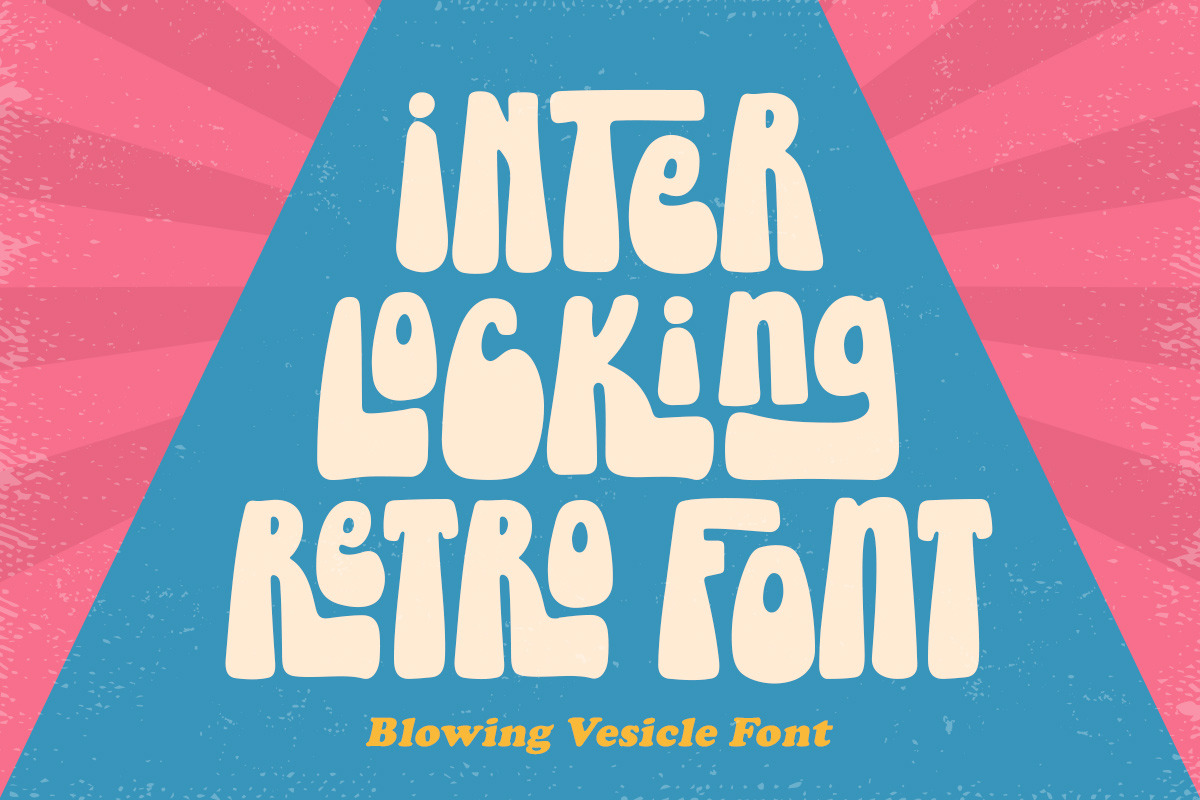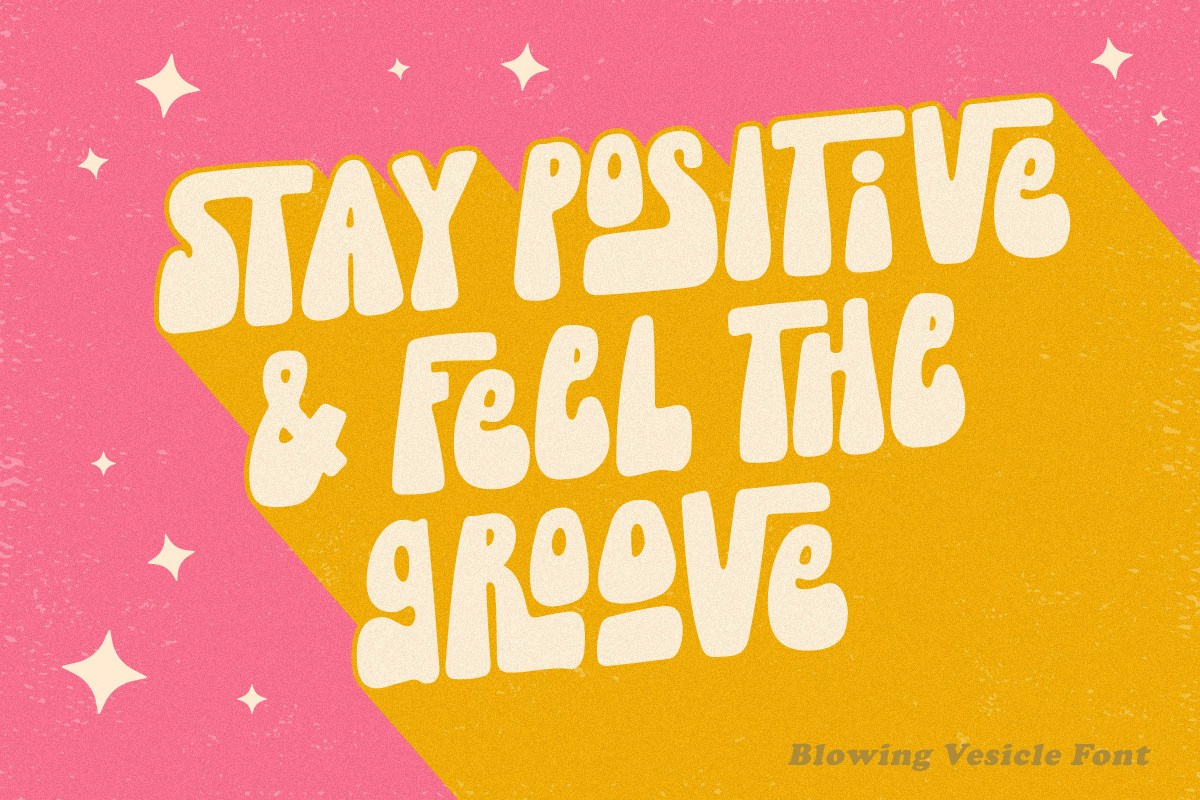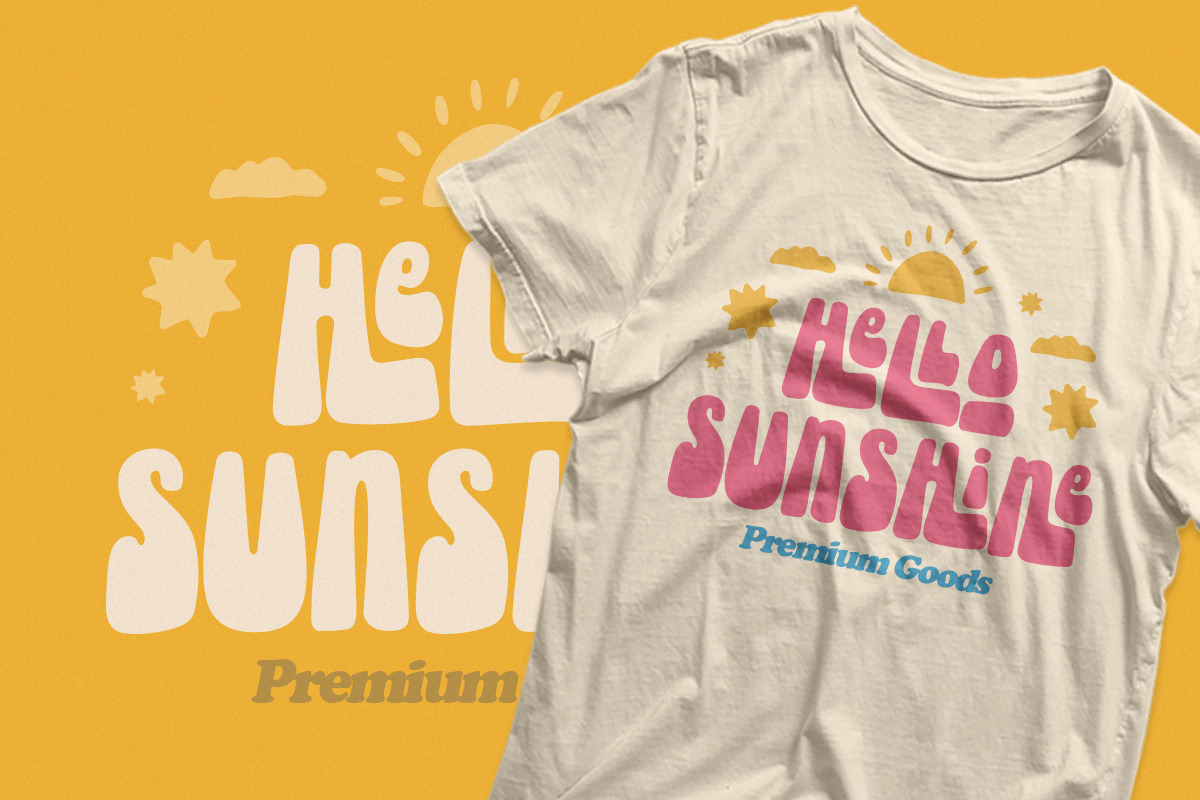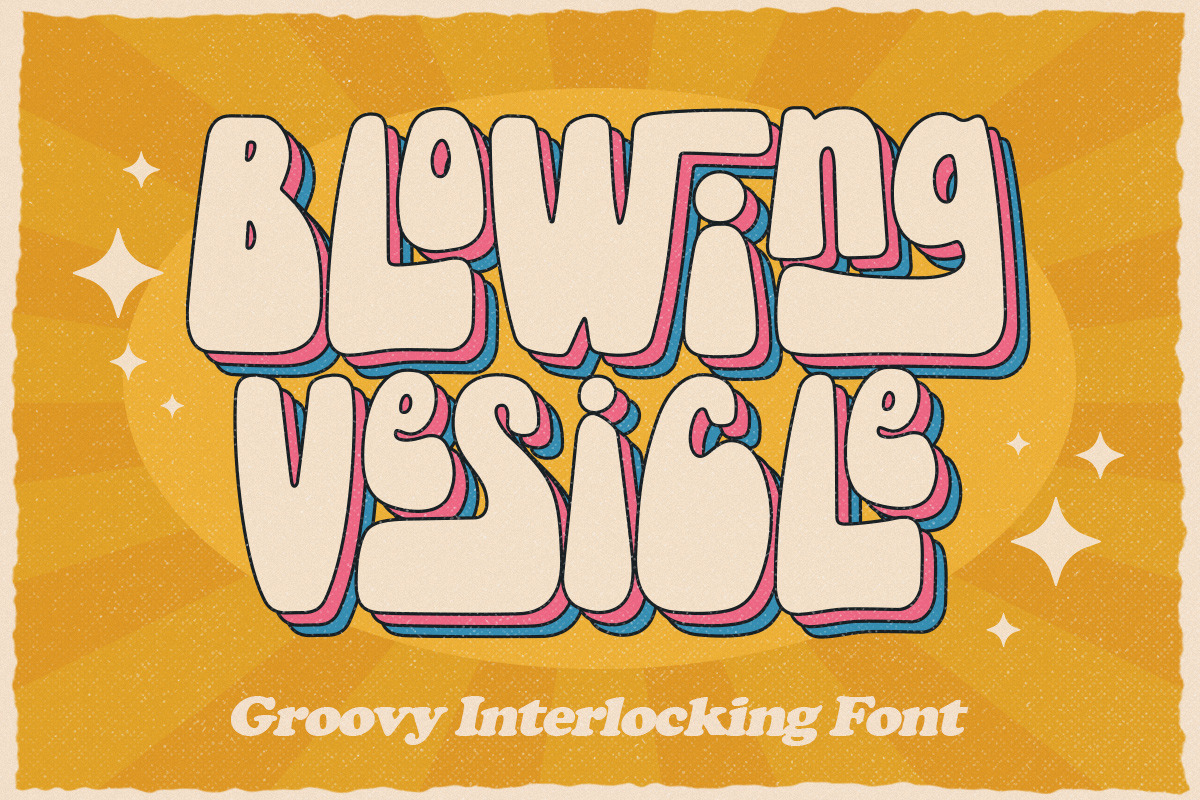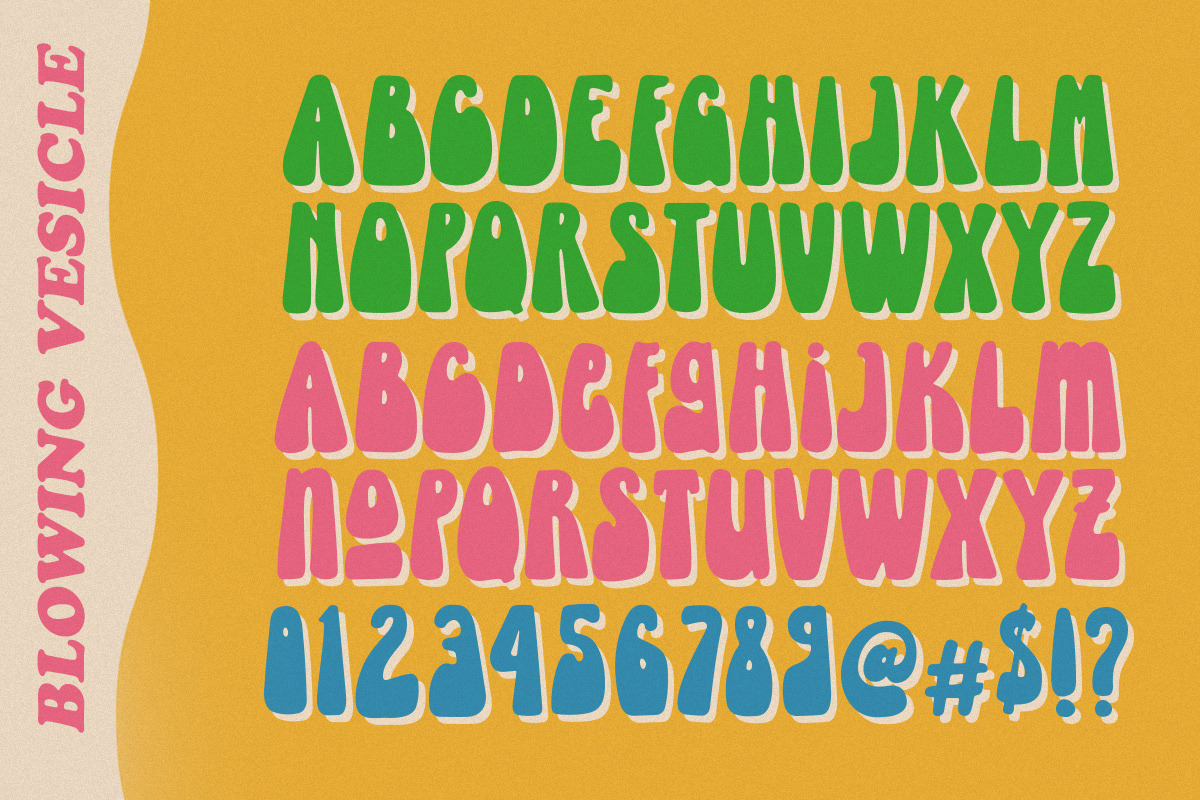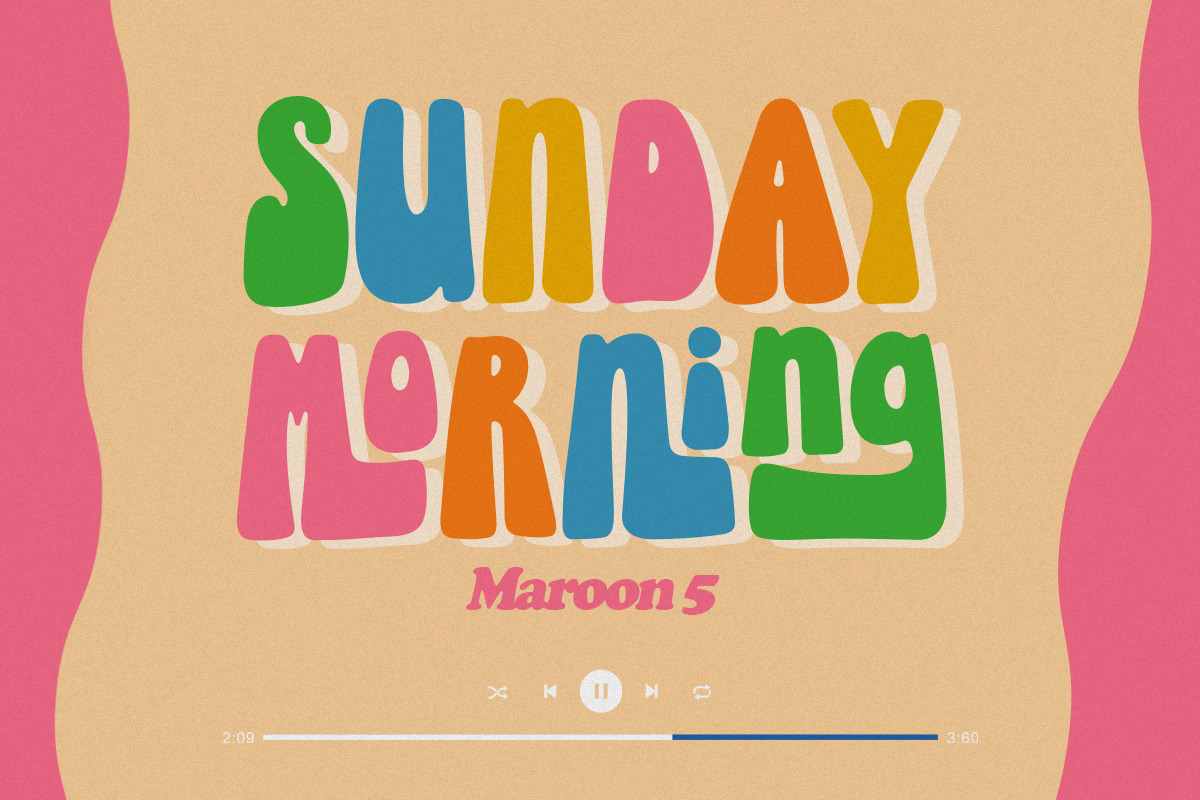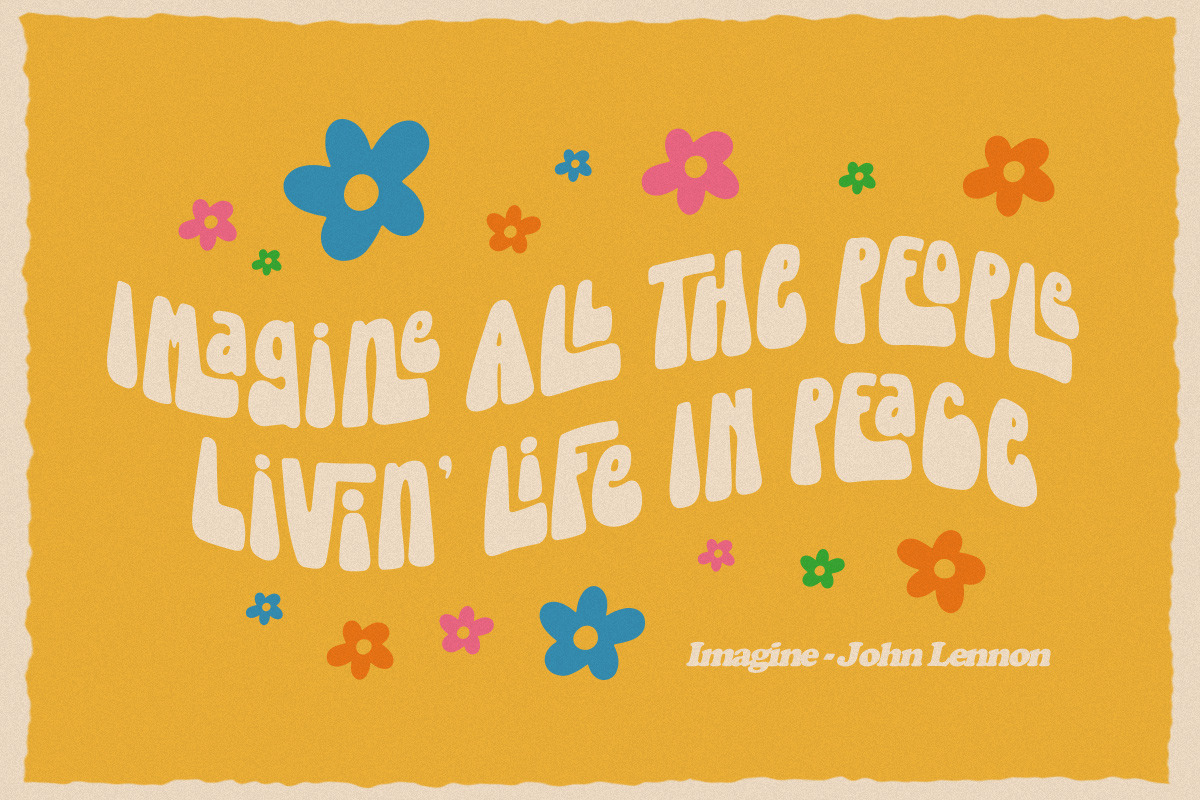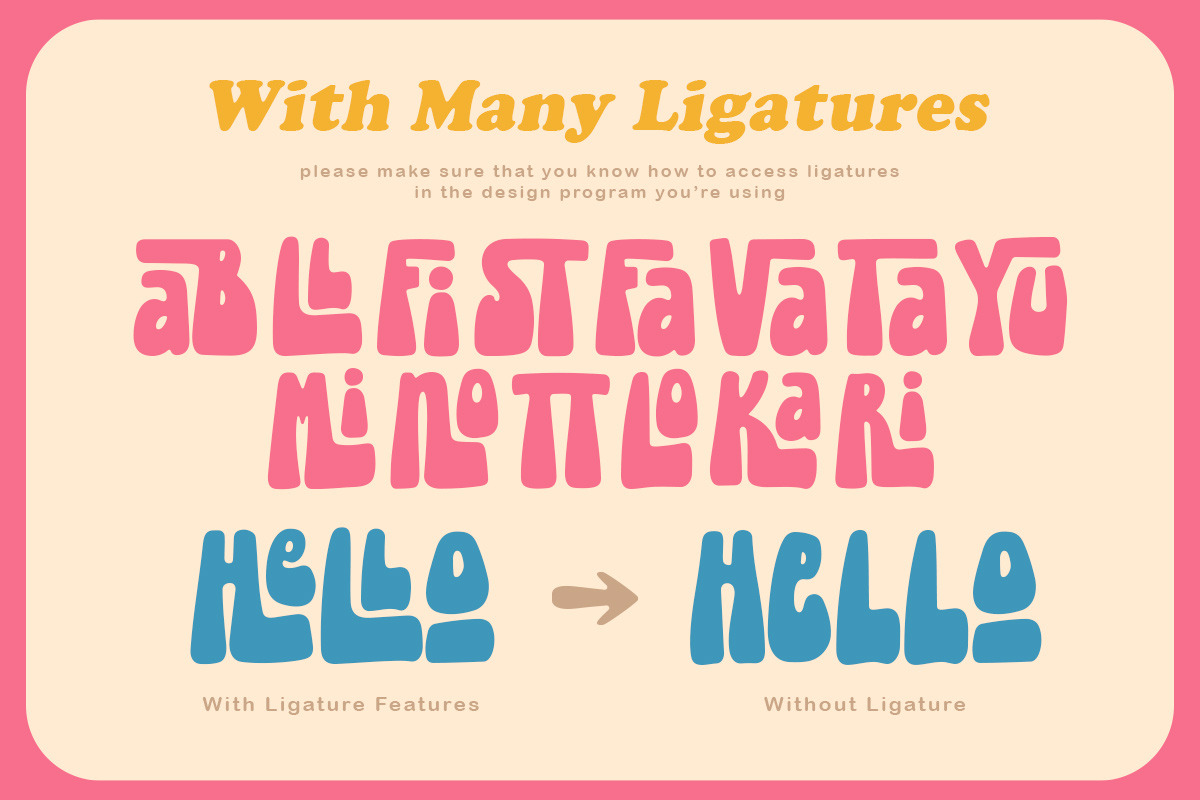
Blowing Vesicle - Psychedelic Font
Blowing Vesicle is a retro bold font which will bring you back to 60s feel. This font perfectly made to be applied especially in logo, and the other various formal forms such as invitations, labels, logos, magazines, books, greeting / wedding cards, packaging, fashion, make up, stationery, novels, labels or any type of advertising purpose.
- alternates
- swashes